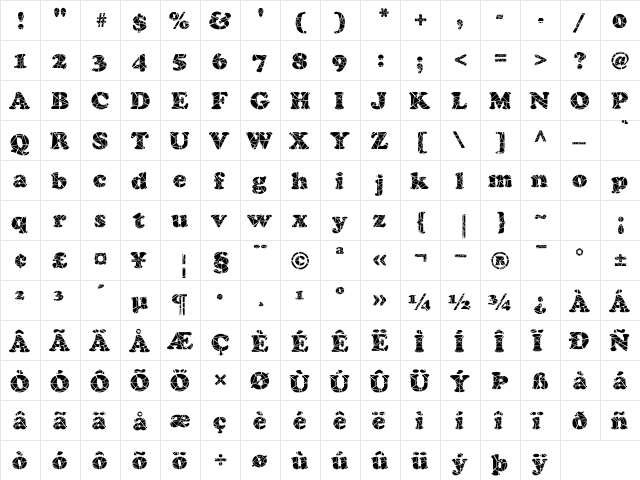
Marshmallow-Cracked Normal
Design Context for Marshmallow-Cracked Typeface
Marshmallow-Cracked is a composed and adaptable typeface that performs quietly and consistently across a wide range of design contexts.